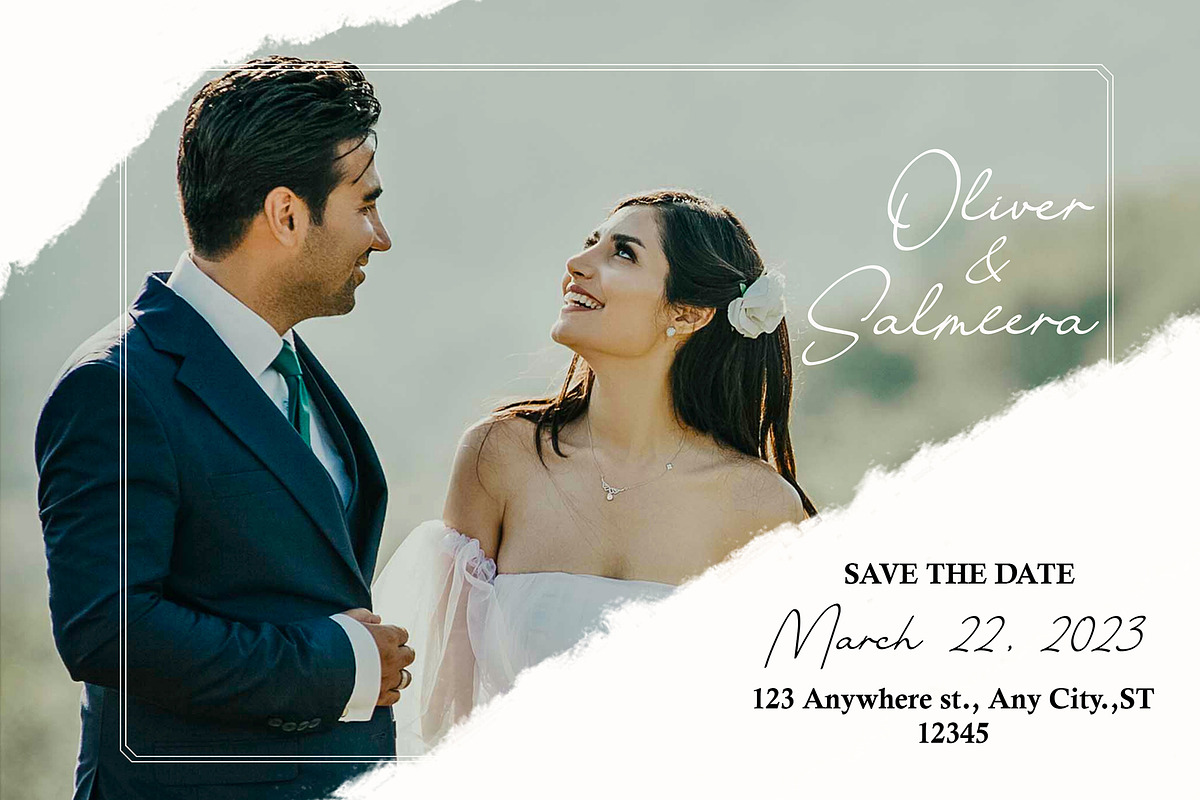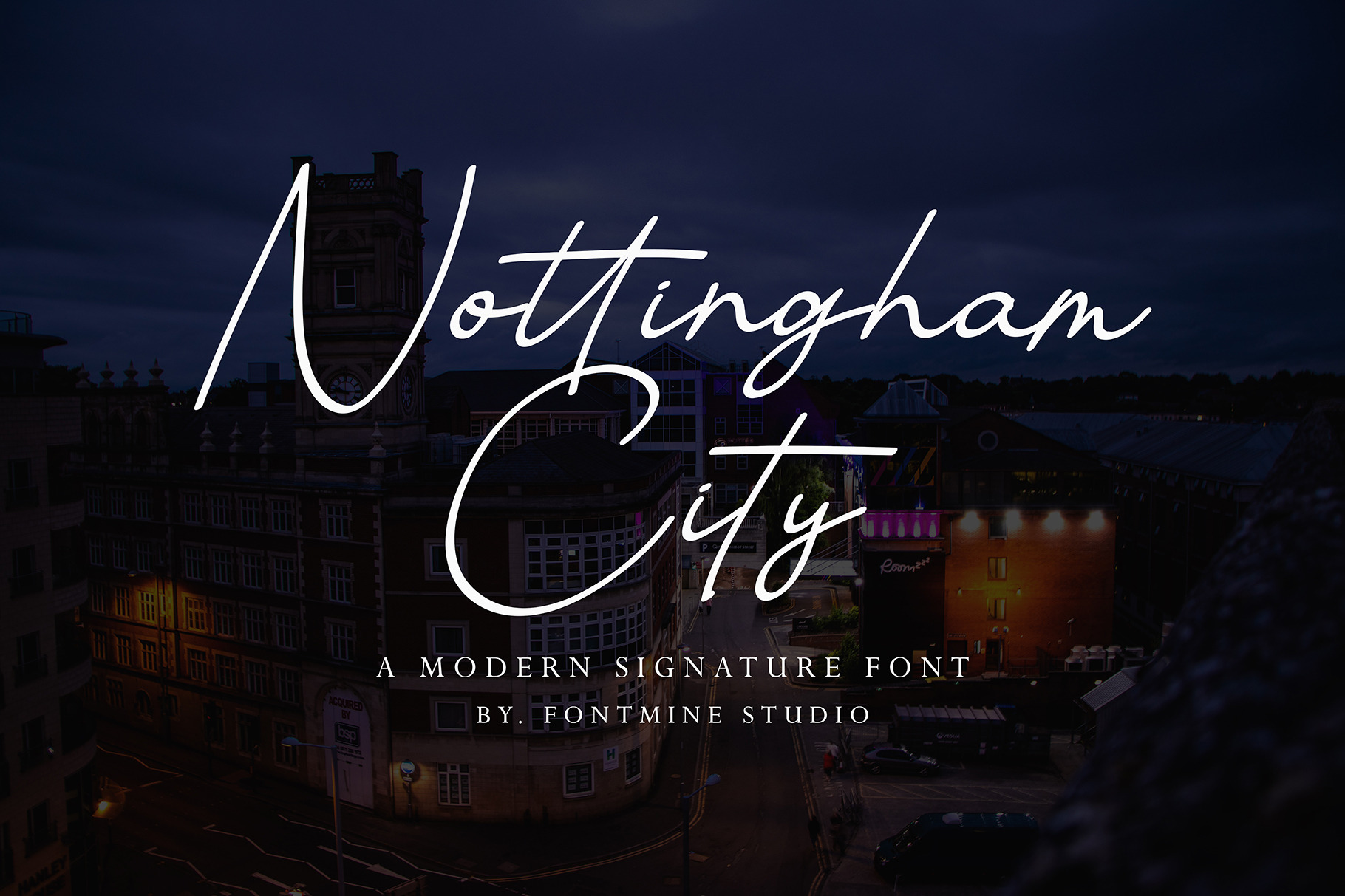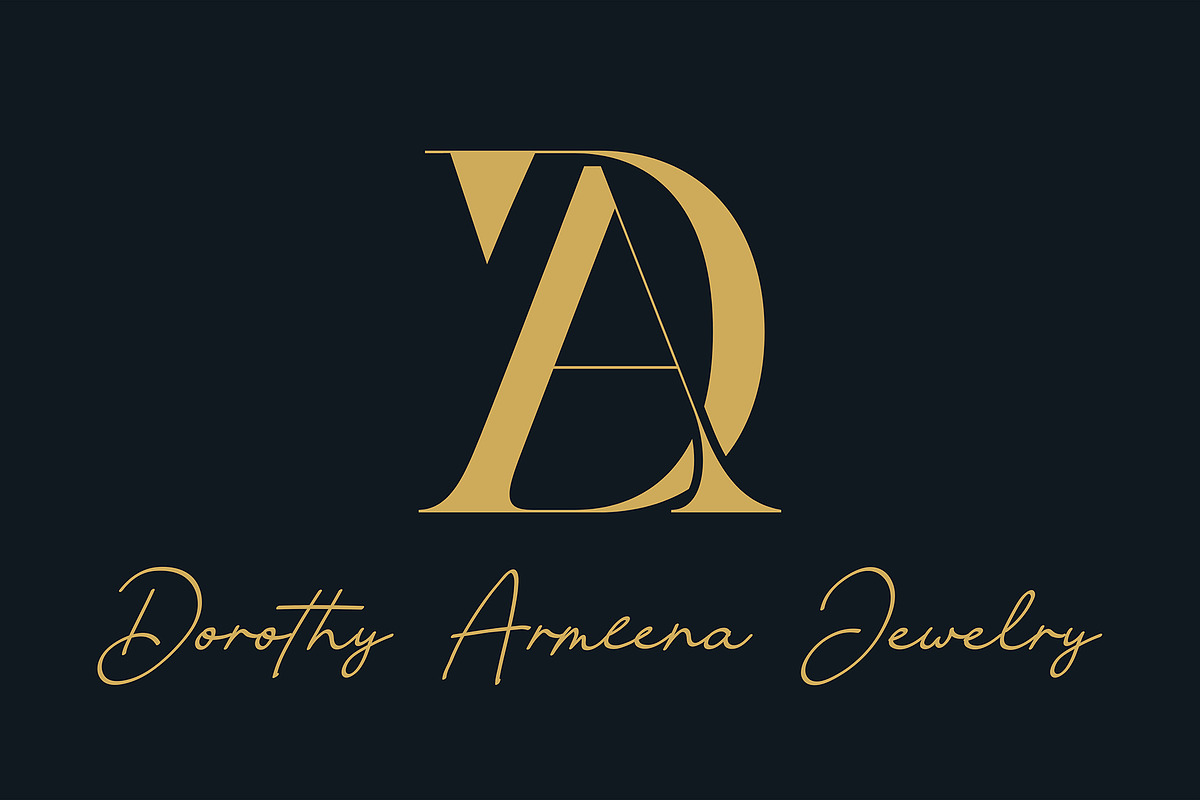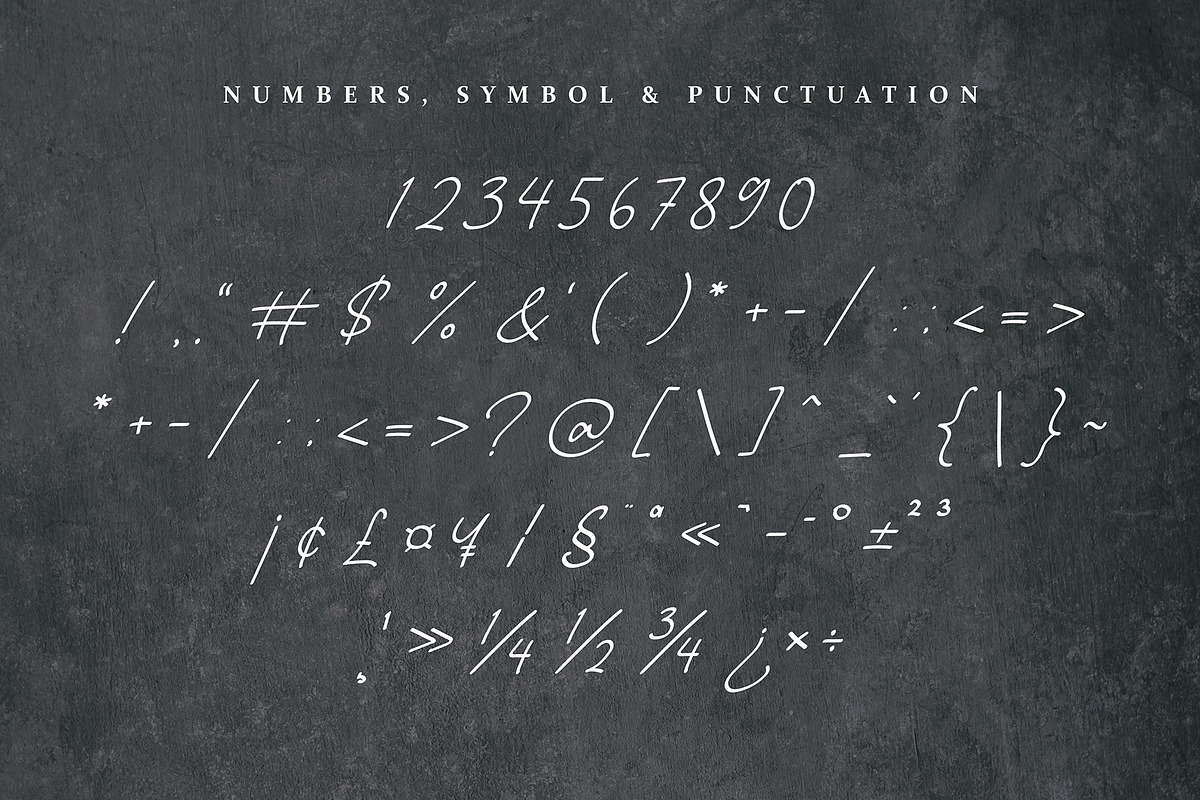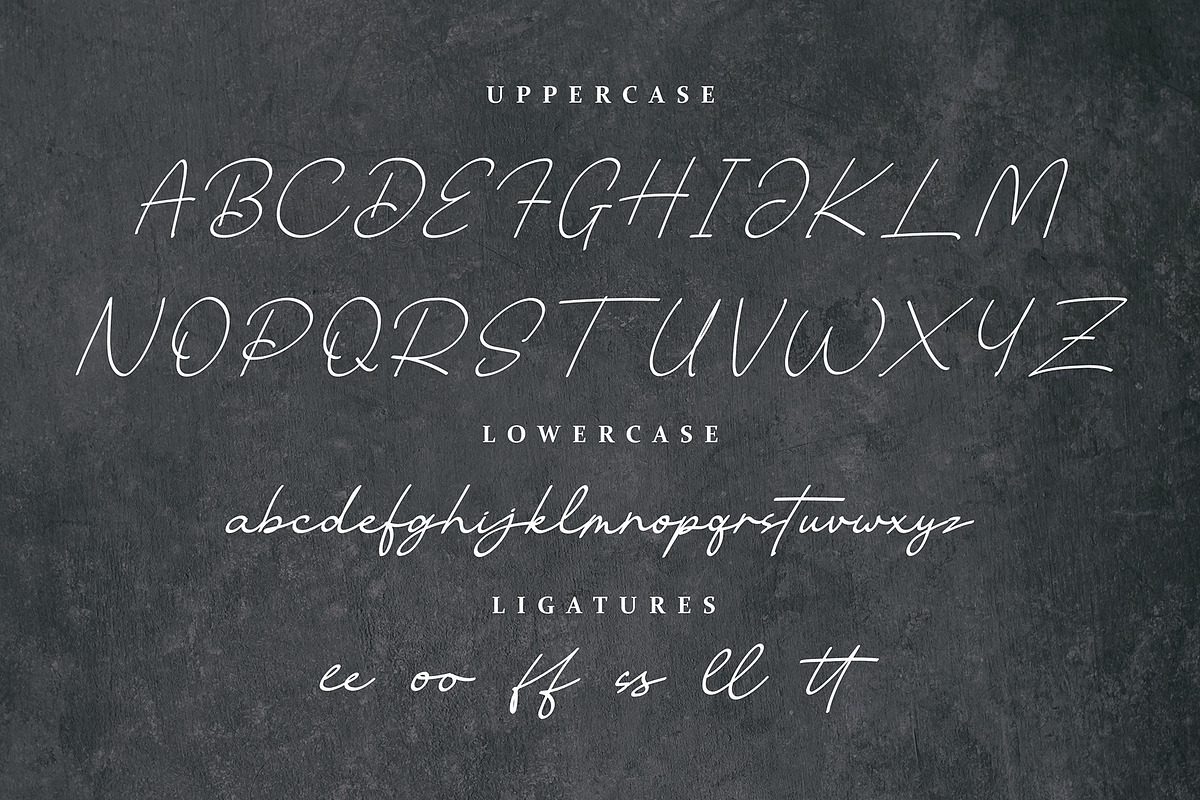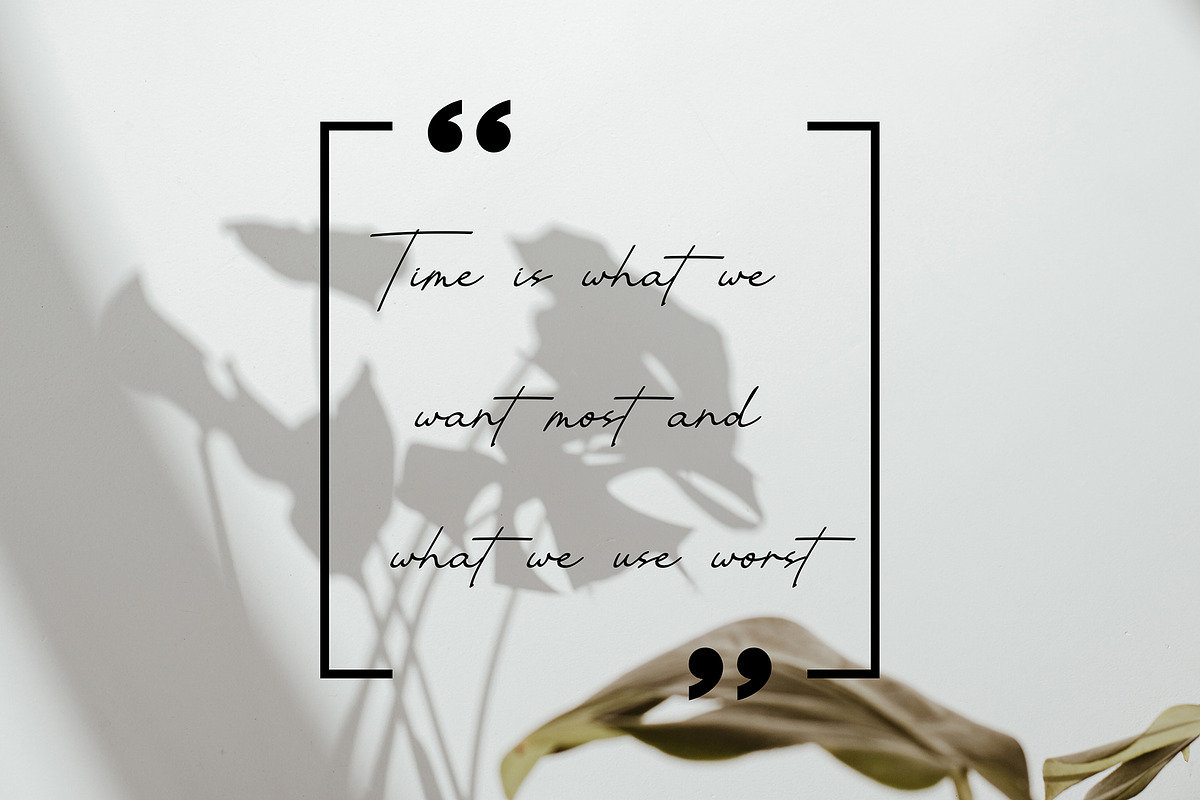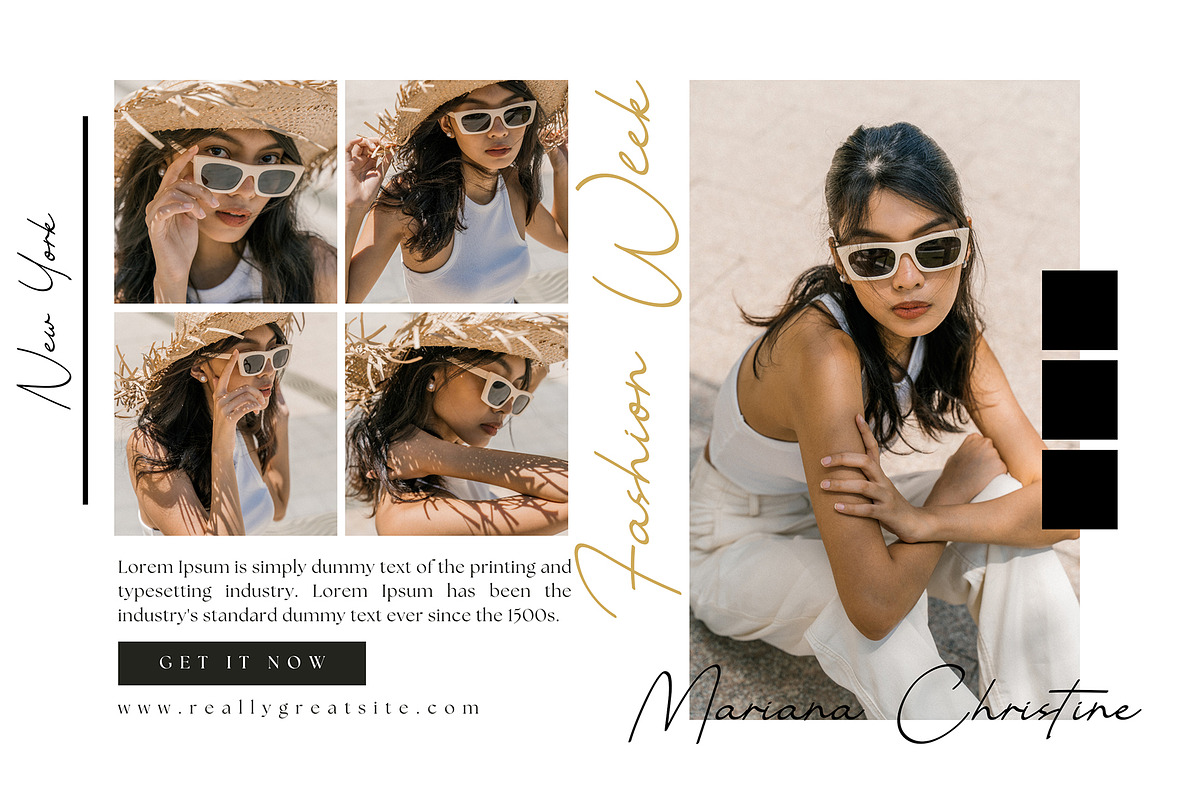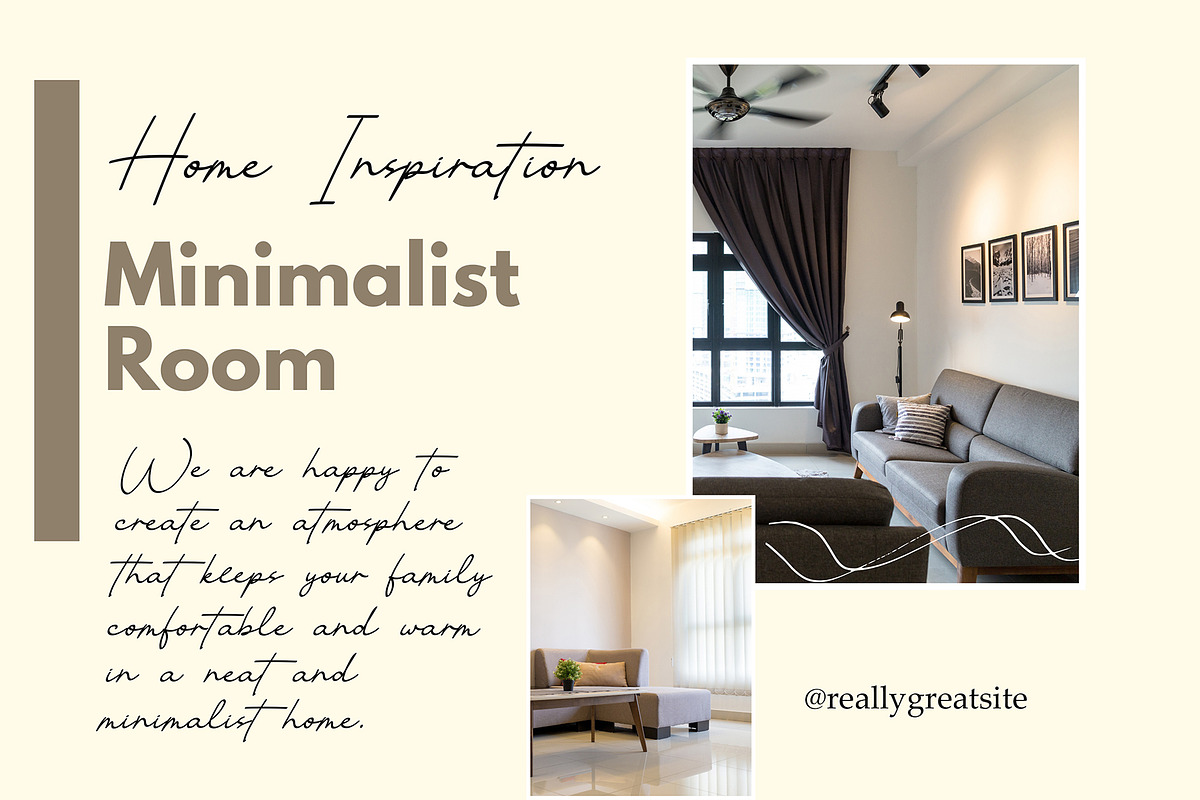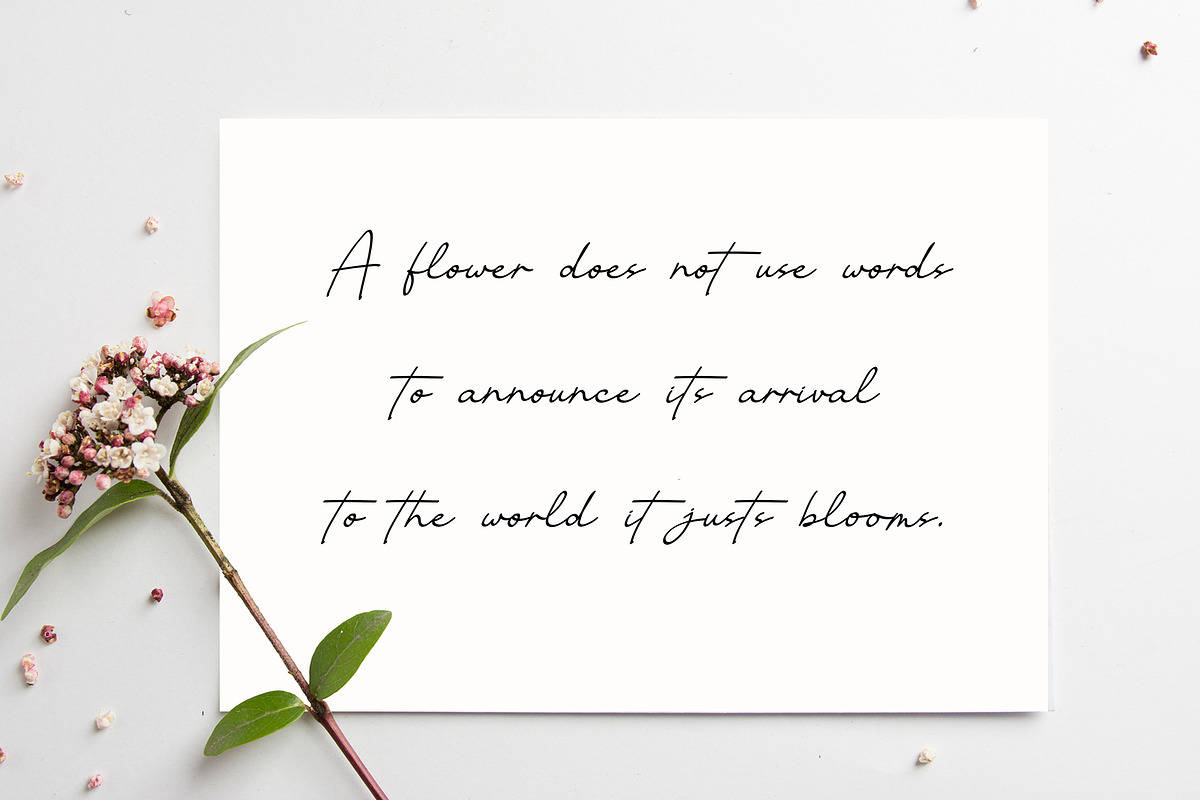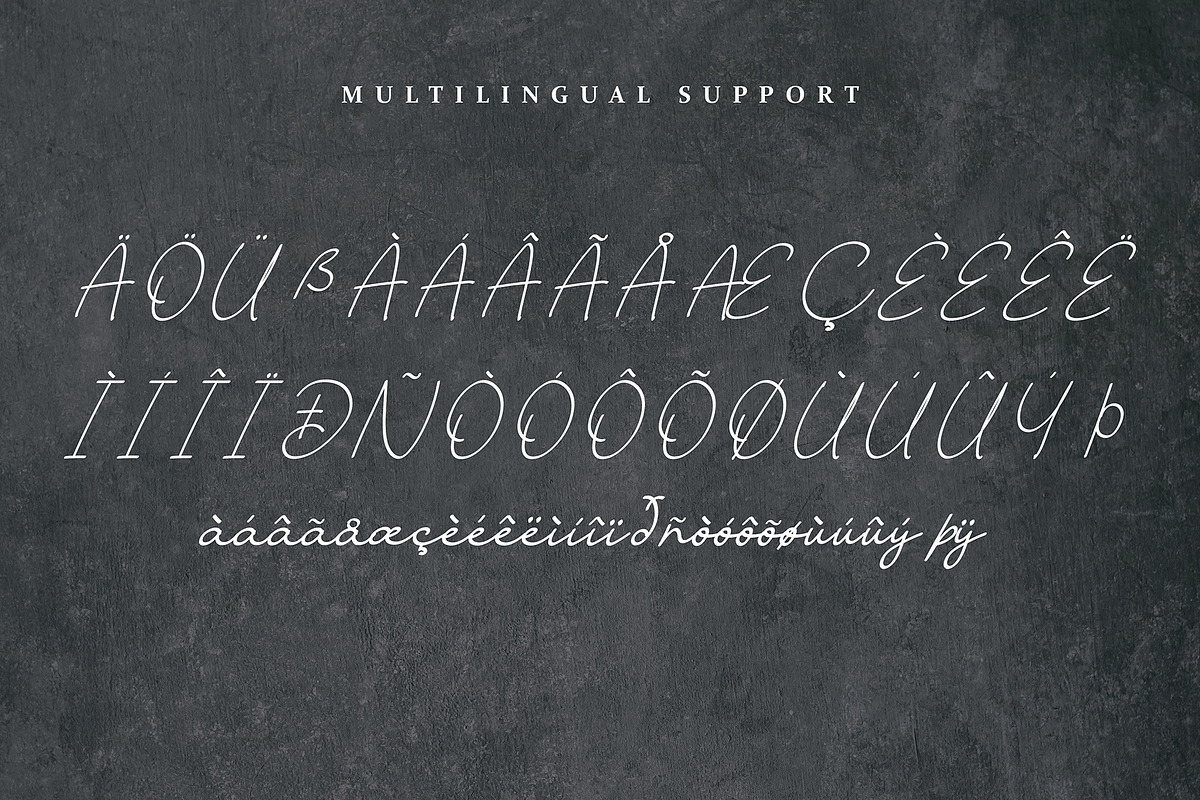
Nottingham City - Signature Font
Nottingham City - Signature Handwritten Font
Nottingham City is Script Font with elegant and signature style, that are very beautiful,luxurious,and high class for creating for logos, invitations, stationery, wedding designs, social media posts, advertisements, product packaging, product designs, label, photography, watermark, special events, or anything.
Nottingham City : comes with a full set of uppercase and lowercase letters, combined with 6 Standards Ligatures, Multilingual Symbols, Numerals, Punctuation.